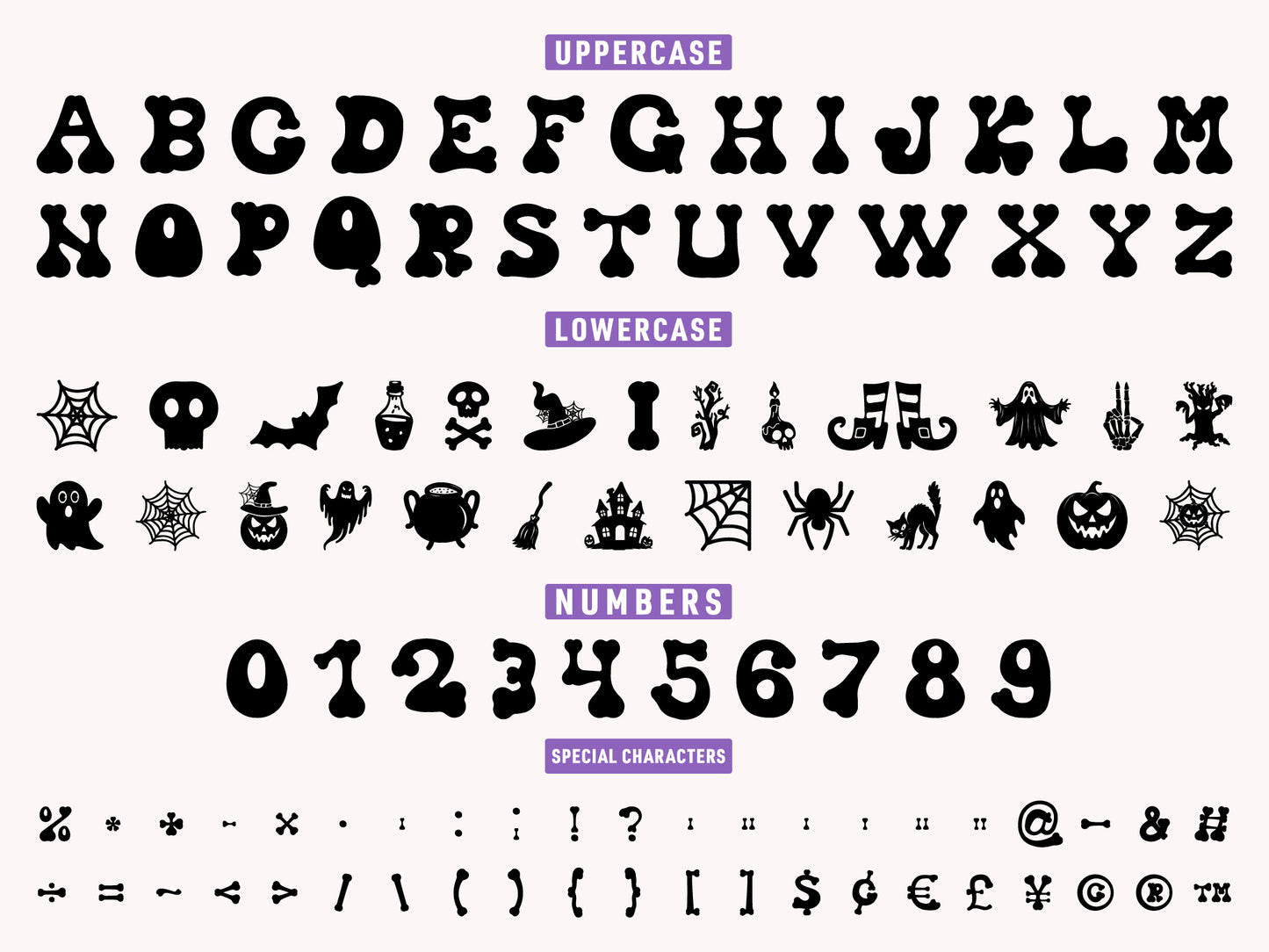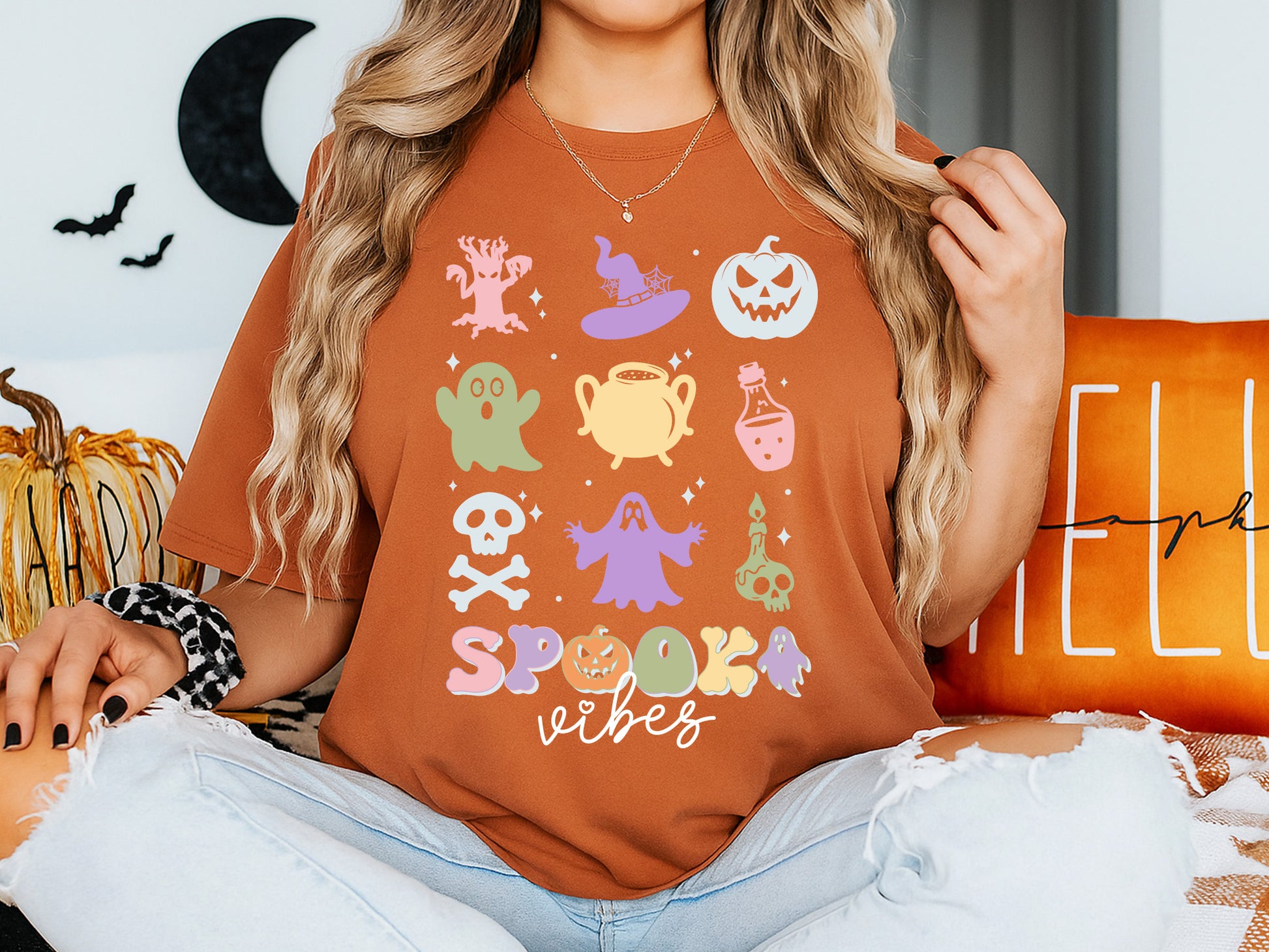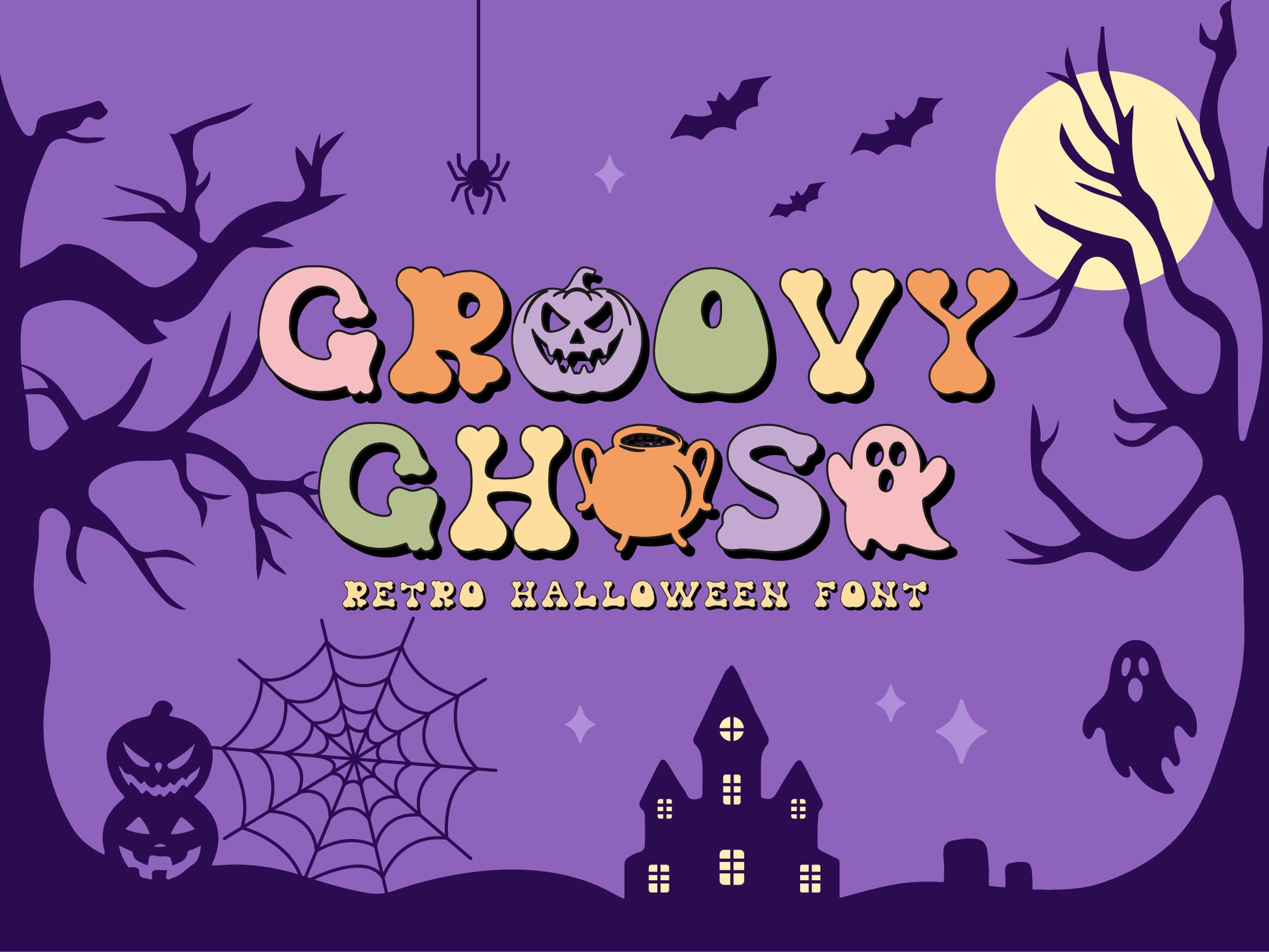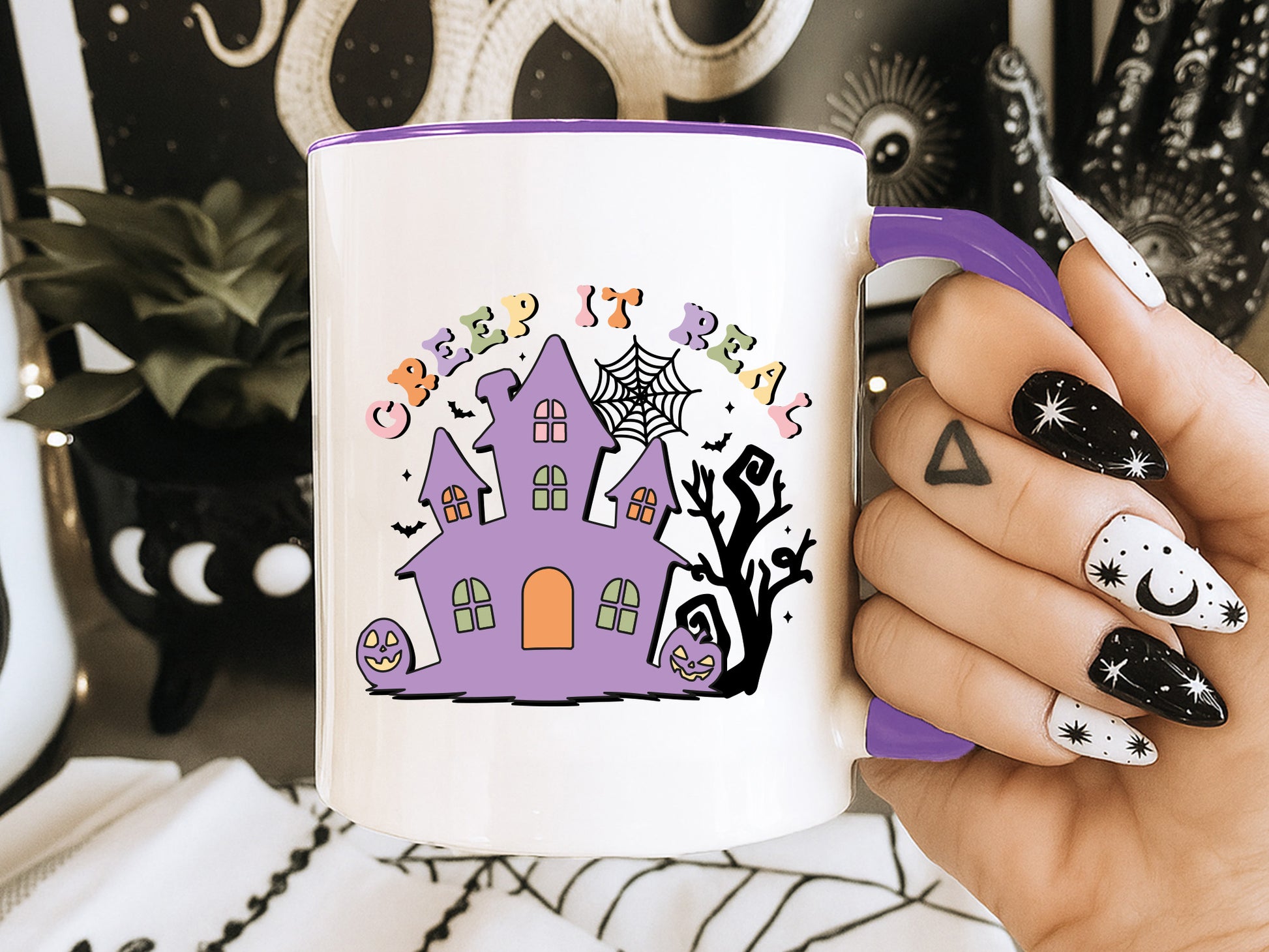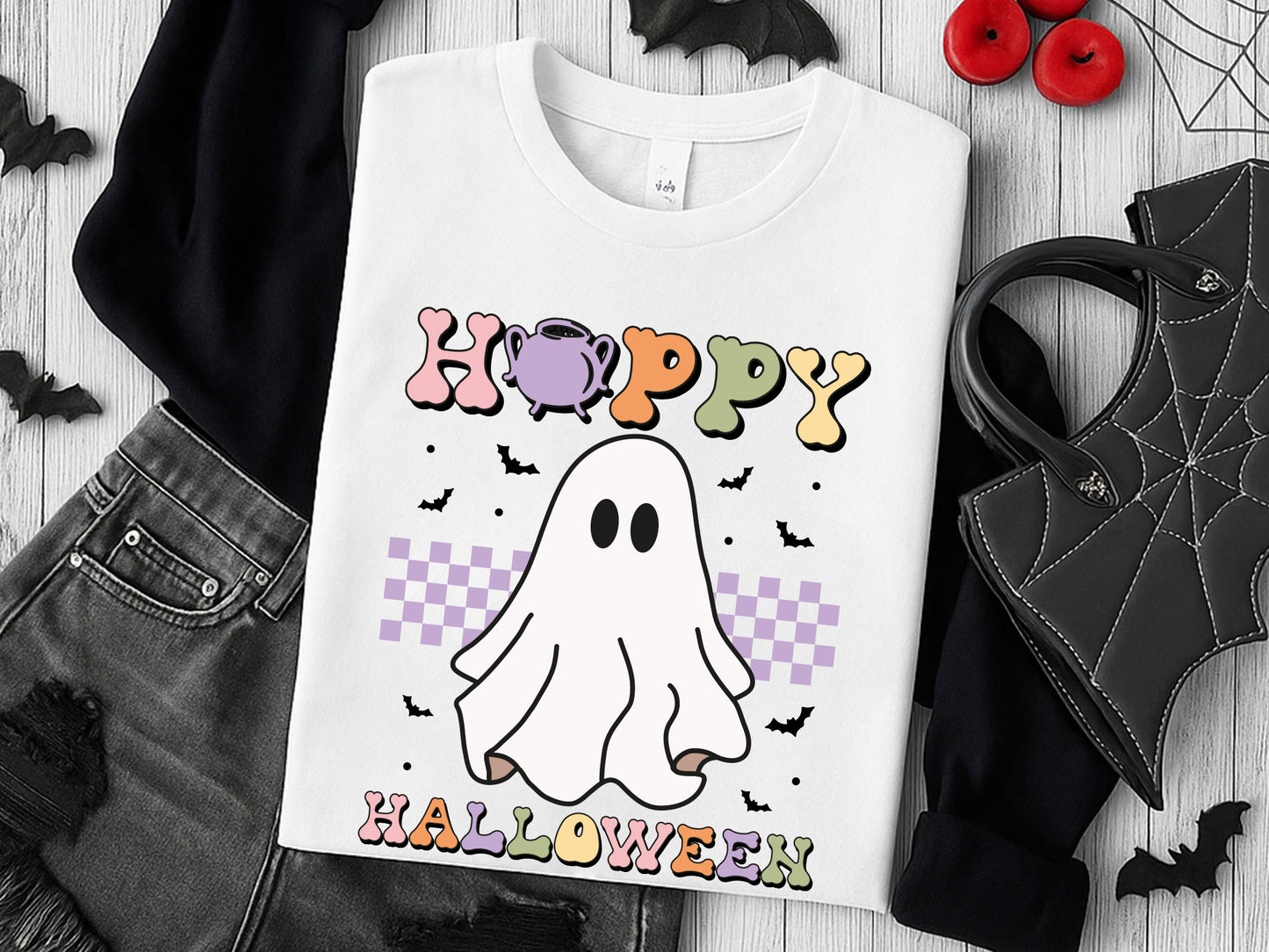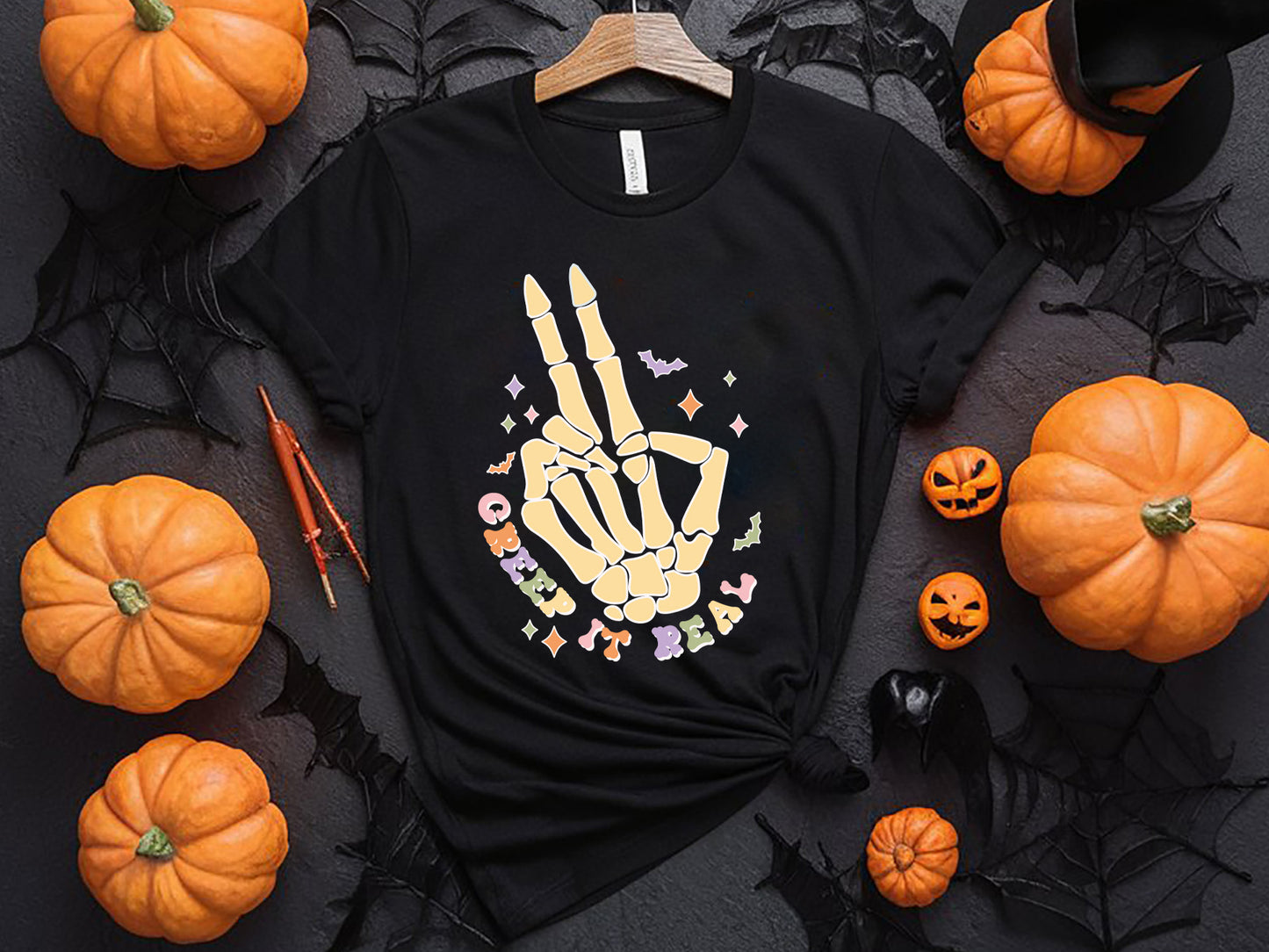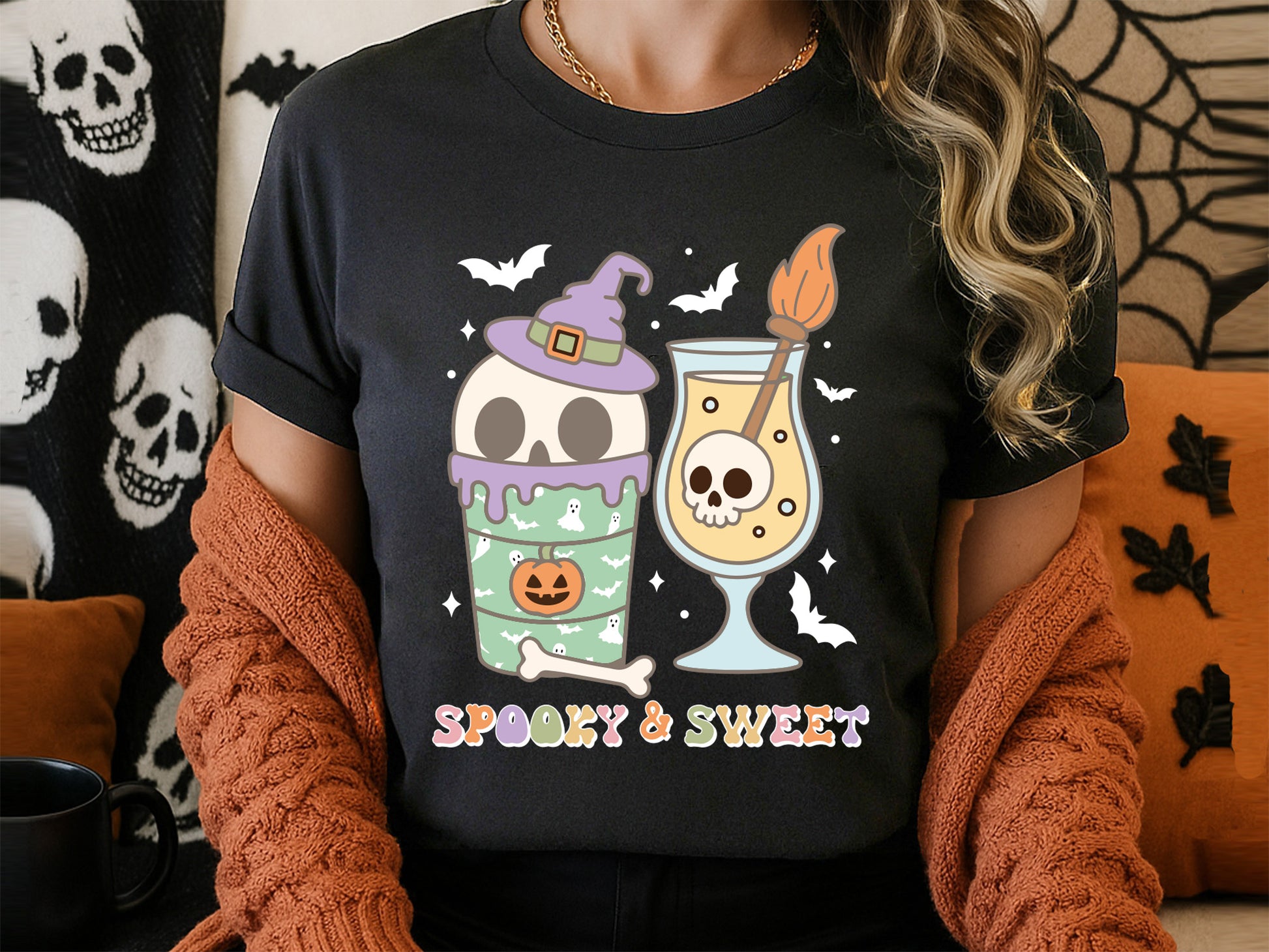
Groovy Ghost - A Retro Halloween Font
Explore our Groovy Ghost – a Retro Halloween Font that infuses your designs with vintage charm and playful energy. This bold and funky typeface combines classic retro aesthetics with a fun, spooky twist, making it just right for party invitations, t-shirts, posters, and digital crafts. If you're creating designs for trick-or-treat events or Halloween-themed merchandise, this Retro Halloween Font adds a delightful nostalgic touch. With both OTF and TTF files included, Groovy Ghost is a breeze to install and works perfectly with your favorite design software. Its quirky curves and 70s-inspired flair ensure it stands out in any project. Our Retro Halloween font is perfect for crafters, designers, and anyone who adores vintage Halloween style.